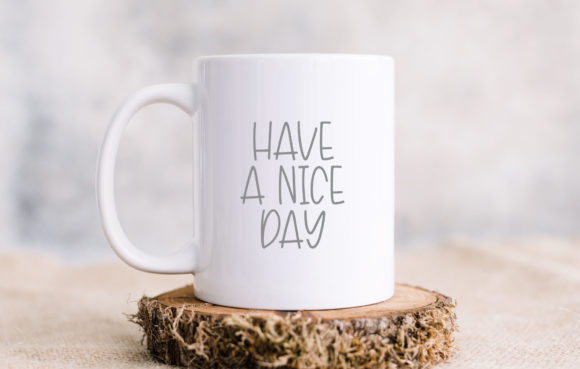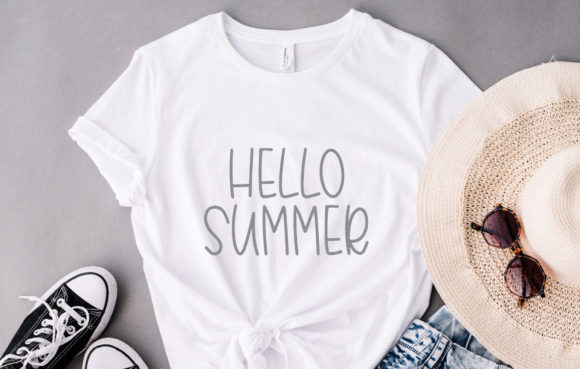
My Angle Font
db-ku.com - Script & Handwritten -- My Angle is a sweet and friendly handwritten font. Its natural and unique style makes it incredibly fitting to a large pool of designs. The only limit is your imagination!